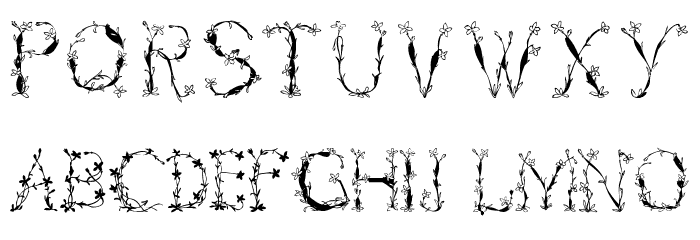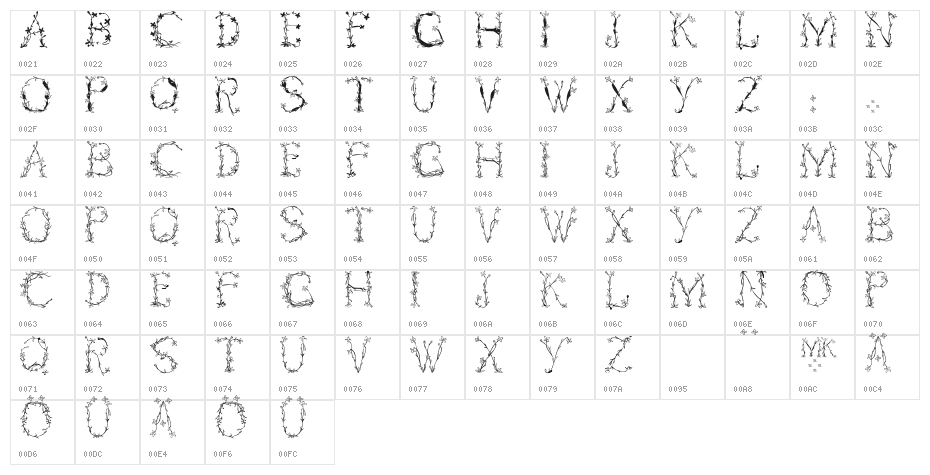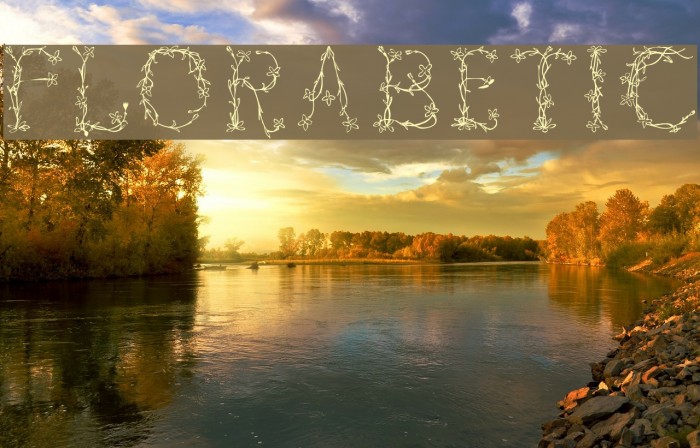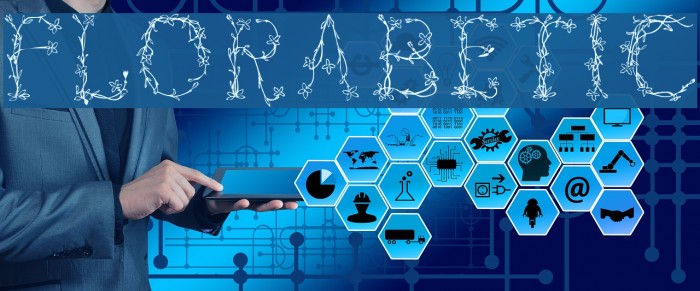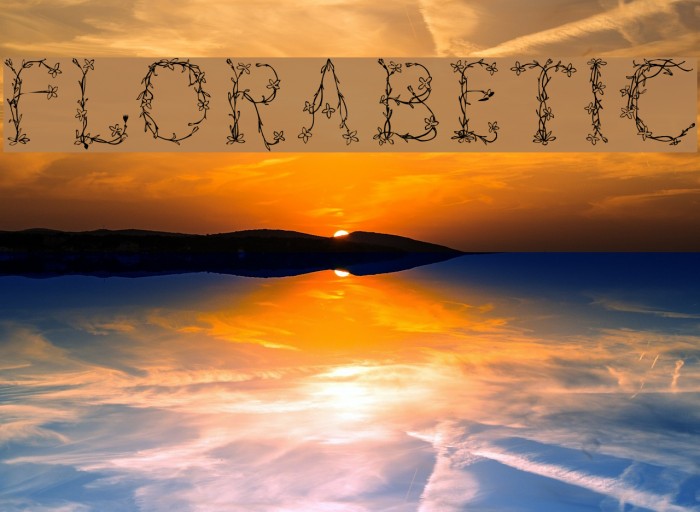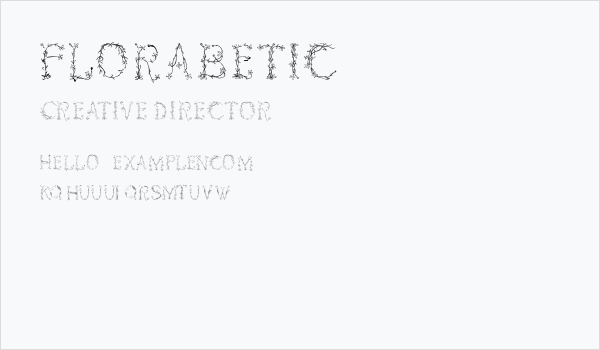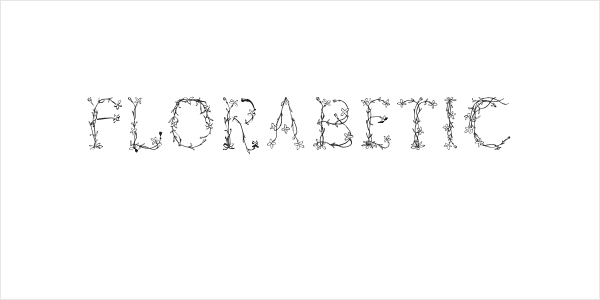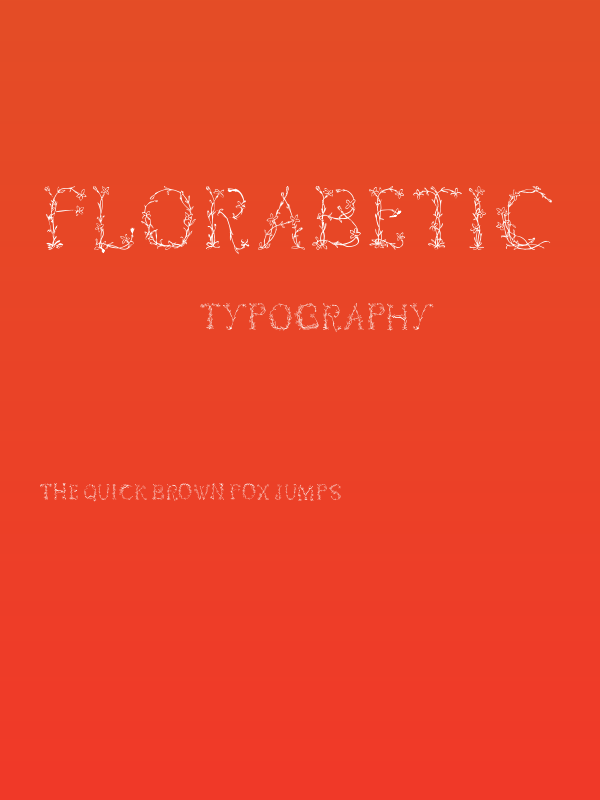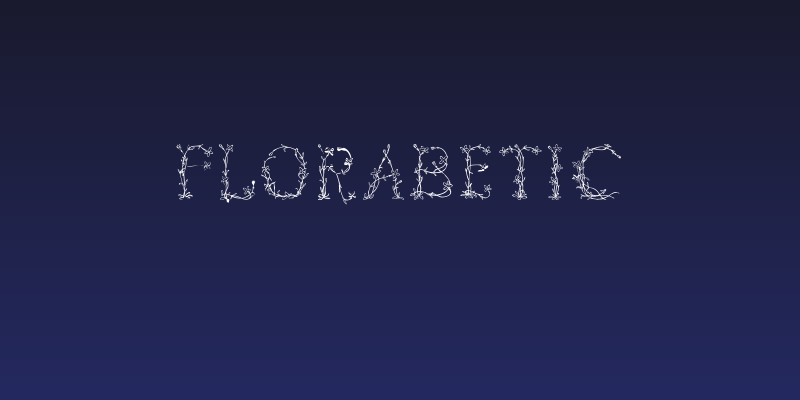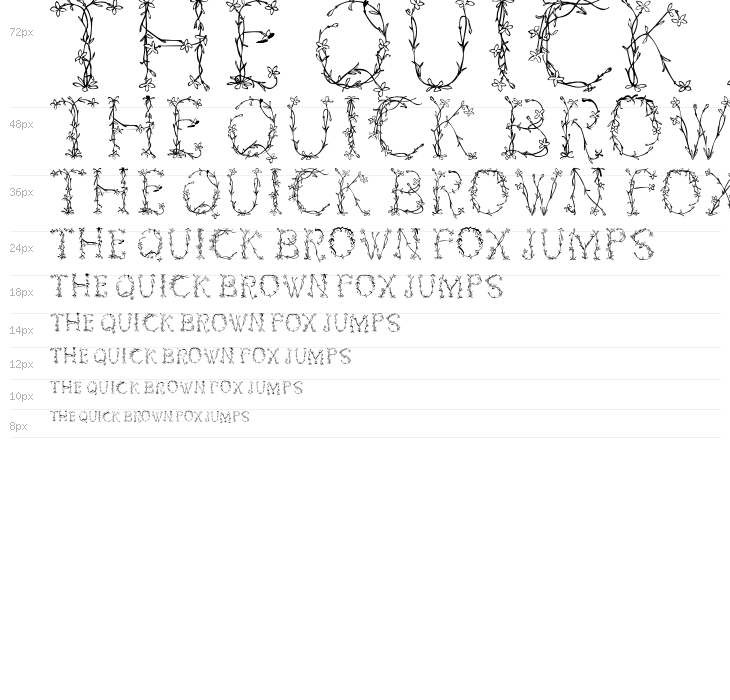
Florabetic Font
Florabetic Description
This decorative font is characterized by its intricate floral design, where each letter is composed of delicate vines and blossoms. The artistic style gives it a whimsical and organic feel, making it stand out with its unique aesthetic. The letters are formed by intertwining branches and leaves, creating a sense of movement and growth. This font is perfect for projects that require a touch of nature and elegance, such as wedding invitations, garden-themed events, or eco-friendly branding. Its detailed and ornate appearance makes it more suitable for display purposes rather than body text, as the complexity might affect readability in smaller sizes.
| Proposed Projects | Ideal for wedding invitations, garden-themed events, eco-friendly branding, and decorative headlines. |